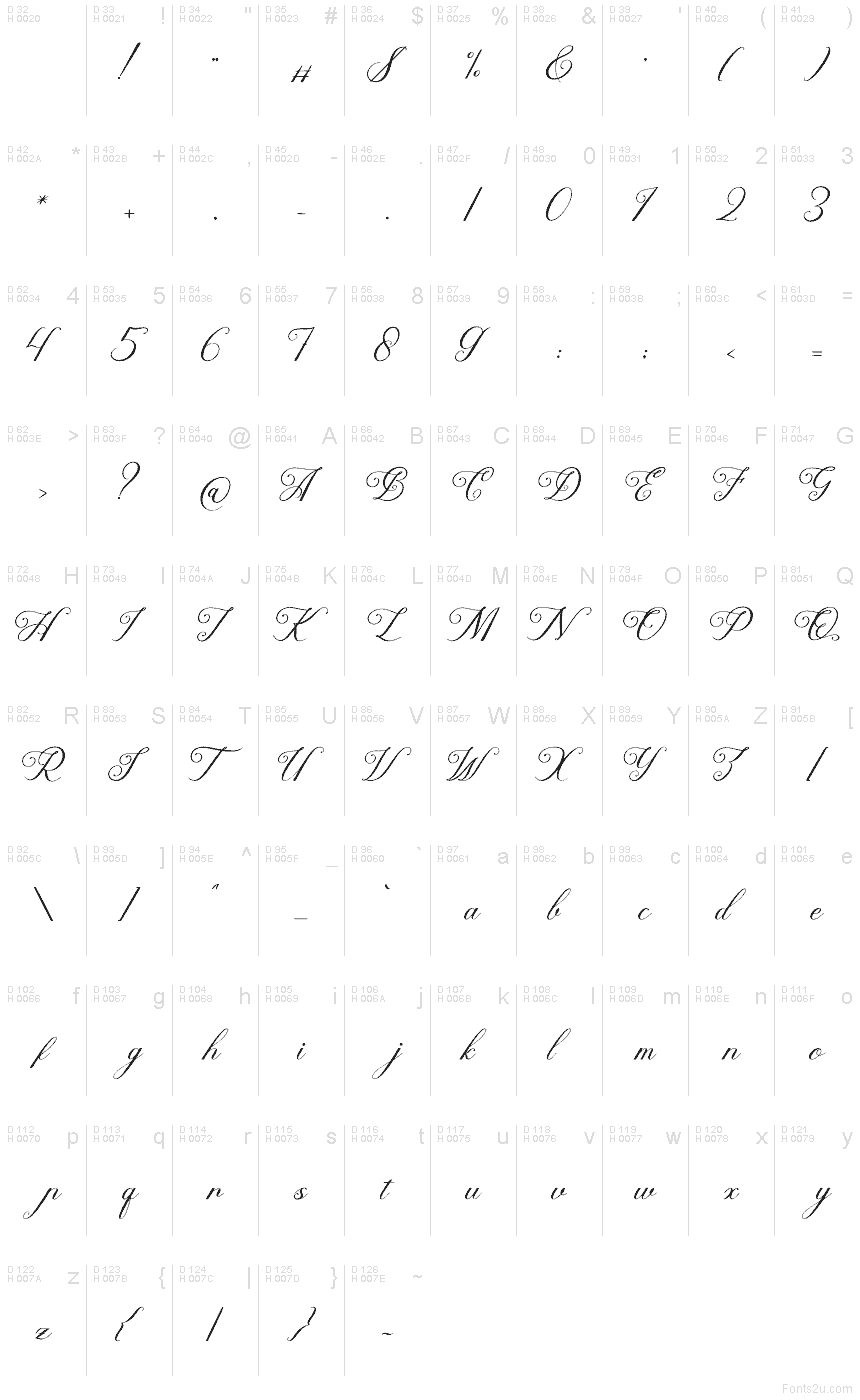
Bighried Ranbell
Bighried Ranbell font by Denustudios is a free calligraphy typeface with a graceful, handwritten elegance that feels like ink gliding across fine paper. Slender, looping strokes and gently tilted letters create a refined, romantic rhythm, while the delicate texture keeps it from feeling stiff or overpolished. It brings the look of carefully penned script to digital layouts without losing that human, slightly nostalgic touch.
Using Bighried Ranbell, you can bring a sense of ceremony to wedding invitations, save-the-dates, logo wordmarks, boutique packaging, certificates, and social media quote graphics. The flowing forms shine when used large for names and headlines, supported by a clean serif or sans serif for body text. This free font works beautifully when you give it room to breathe, generous line spacing, and light, airy backgrounds.